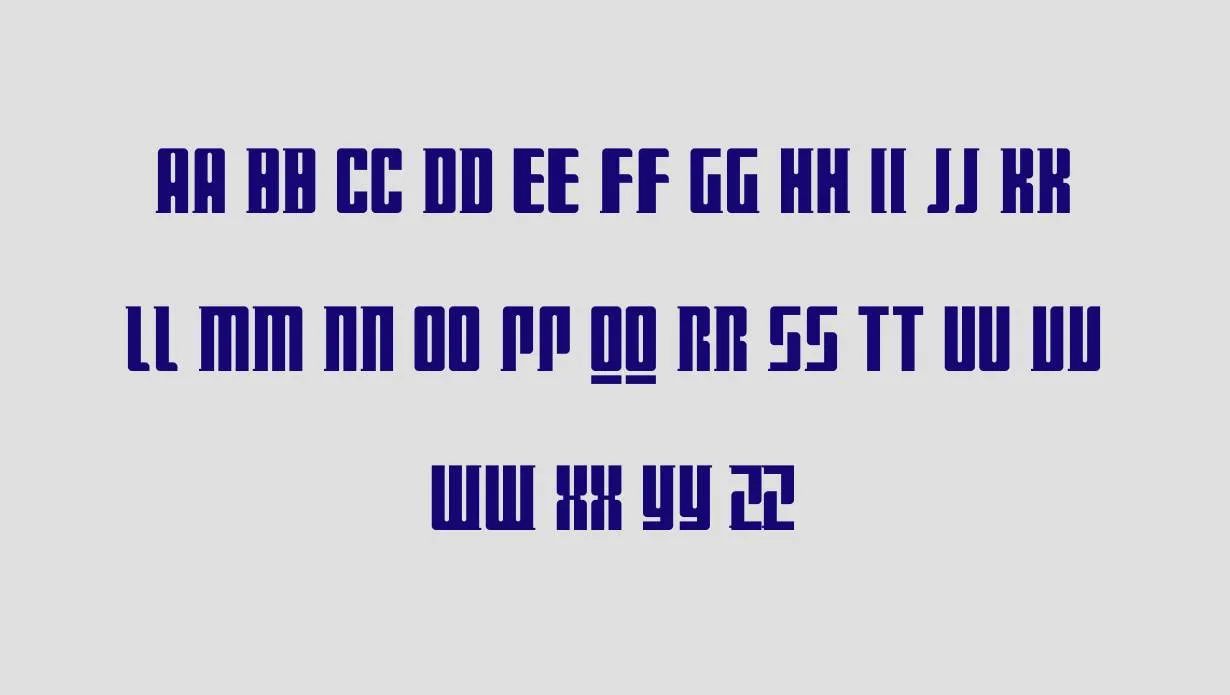
The Matt Smith Doctor Who font is a distinctive typeface inspired by the iconic TV show “Doctor Who.” This font has gained popularity among fans who wish to create art, posters, or merchandise related to the series.
Designed to mirror the style seen in the show’s title sequences and promotional materials, this font captures the essence of the Doctor Who universe. When in need of a font with matching style and characters, look no further than the betterfly font as it perfectly aligns with the font mentioned.